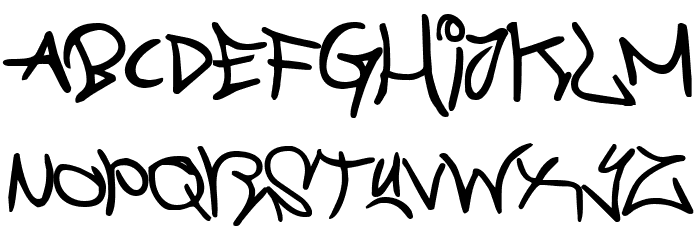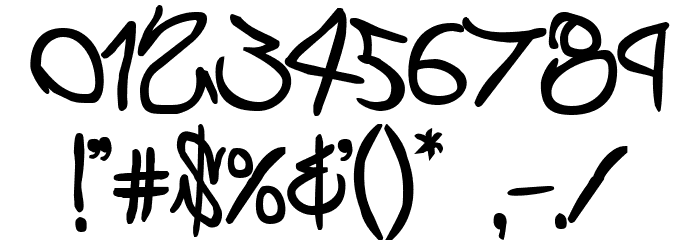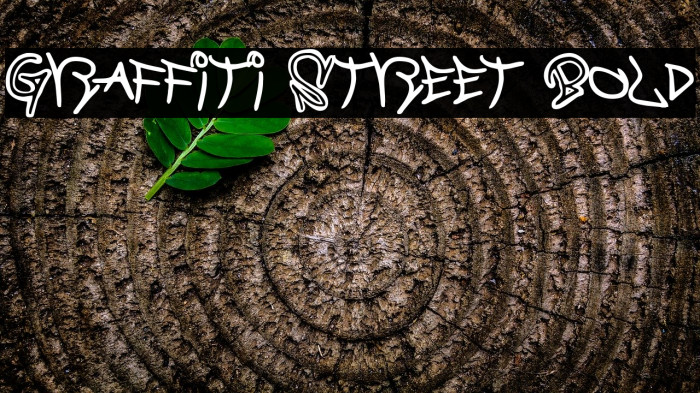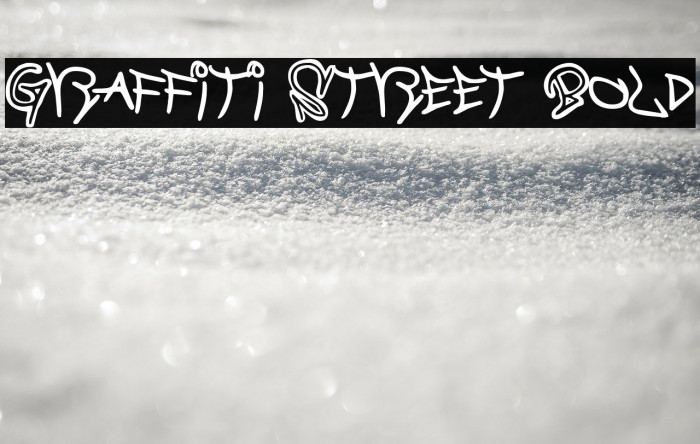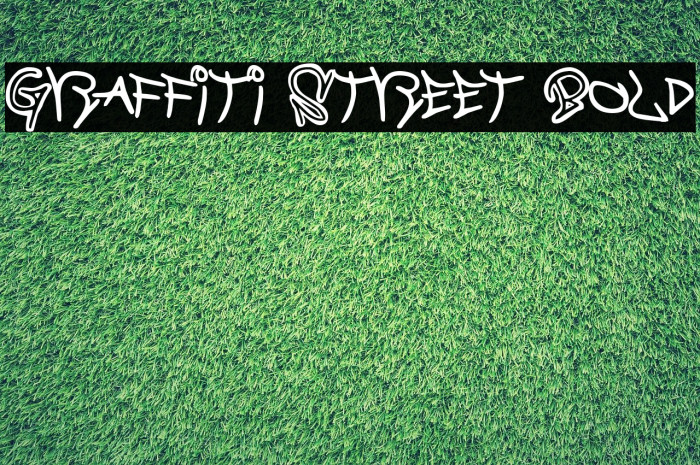
Graffiti Street Bold Font
This font exudes an urban, edgy vibe reminiscent of street art and graffiti. The characters are bold and dynamic, with a playful yet rebellious flair. Each letter is uniquely styled with exaggerated curves and angles, giving it a hand-drawn appearance. The uppercase and lowercase letters maintain a consistent style, while the numbers and special characters add a touch of creativity. The font's thick strokes and irregular shapes make it stand out, perfect for capturing attention and conveying a sense of movement and energy.
A bold, graffiti-inspired font with dynamic, hand-drawn characters.
- Proposed Projects: Ideal for street art designs, urban-themed posters, music album covers, and edgy branding projects.
- Overall Style: Urban, Edgy, Artistic